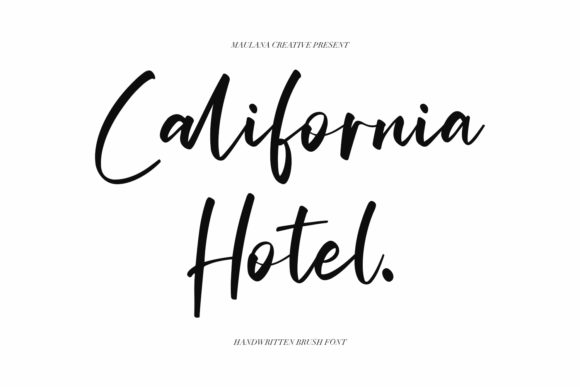
California Hotel Font for Digital Campaigns
California Hotel is a premium handwritten font that brings a touch of elegance and charm to any design. As a marketing specialist, I've found that the right typeface can transform a simple message into a powerful visual statement. California Hotel offers just that—its unique script style makes it ideal for creating scroll-stopping visuals across various digital platforms.
Elegant Typography for Social Media Graphics
When designing Instagram posts or Pinterest pins, the choice of font plays a crucial role in capturing attention. California Hotel’s soft curves and flowing lines give your content a personal, artistic feel. Whether you're promoting a product launch or sharing an inspirational quote, this font adds a sense of authenticity and warmth that resonates with audiences.
For example, using California Hotel in a sale announcement can instantly elevate the look of your post. Pairing it with a clean sans serif font for captions ensures readability while maintaining visual balance. This combination works especially well for promotional graphics, where clarity and aesthetics must coexist.
Enhancing Brand Recognition with Consistent Typography
Consistency in branding is key to building recognition. California Hotel can be used as a signature element in your brand's visual identity. From website banners to email headers, applying this font consistently helps reinforce your brand’s personality and makes your content more memorable.
Incorporating California Hotel into your branded templates ensures that every piece of content feels cohesive. It’s particularly effective for content series or webinar banners, where a unified look strengthens the overall message and builds trust with your audience.
Strategic Use in Digital Advertising
Digital ads require clear messaging and strong visual impact. California Hotel’s elegant script is perfect for headlines and callouts that need to stand out in fast-scrolling feeds. Its readability on mobile screens is another plus, making it suitable for small previews and thumbnails.
Consider using this font for a product teaser or a seasonal promotion. The font’s unique character helps create a first impression that lingers. When paired with high-quality imagery and concise text, it enhances the effectiveness of your ad campaigns and increases engagement rates.
Typography for Personal Branding and Content Creators
Content creators and YouTubers often rely on typography to establish their personal brand. California Hotel adds a touch of sophistication to YouTube thumbnails, reels covers, and blog headers. Its versatility allows it to fit both casual and professional tones, making it a go-to choice for a wide range of creative projects.
Using California Hotel in a branded template for an online shop or a digital portfolio gives your work a polished look. It also aligns well with editorial design elements, such as magazine layouts or packaging designs, where a handwritten font can add a personal touch.
Readability and Practical Application Tips
While California Hotel is visually appealing, it’s important to use it strategically. It works best for short text, headlines, and decorative accents rather than long paragraphs. For maximum readability, ensure there’s enough contrast between the font and the background, especially when viewed on smaller screens.
Font pairing is essential to maintain legibility. Combining California Hotel with a clean sans serif font like Helvetica or Arial creates a balanced look. This approach is ideal for social media graphics, landing pages, and campaign visuals where clarity and style are equally important.
Whether you're designing for a small business or a large brand, California Hotel provides a versatile solution that supports your marketing goals. Its elegant yet approachable style makes it a valuable asset in any designer’s toolkit.
Creating Memorable Visual Content with California Hotel
From promotional graphics to brand content, California Hotel offers a unique way to express creativity and professionalism. Its handwritten aesthetic appeals to a broad audience, making it a great choice for campaigns targeting lifestyle, fashion, or wellness niches.
By using this font in your digital assets, you’re not just enhancing the visual appeal—you’re also reinforcing your brand’s voice. California Hotel helps convey messages with confidence and style, ensuring that your content stands out in a crowded digital space.
Whether you're crafting a new campaign or updating your brand’s visual identity, consider how California Hotel can elevate your designs. Its blend of elegance and modernity makes it a powerful tool for marketers, designers, and content creators looking to make a lasting impression.